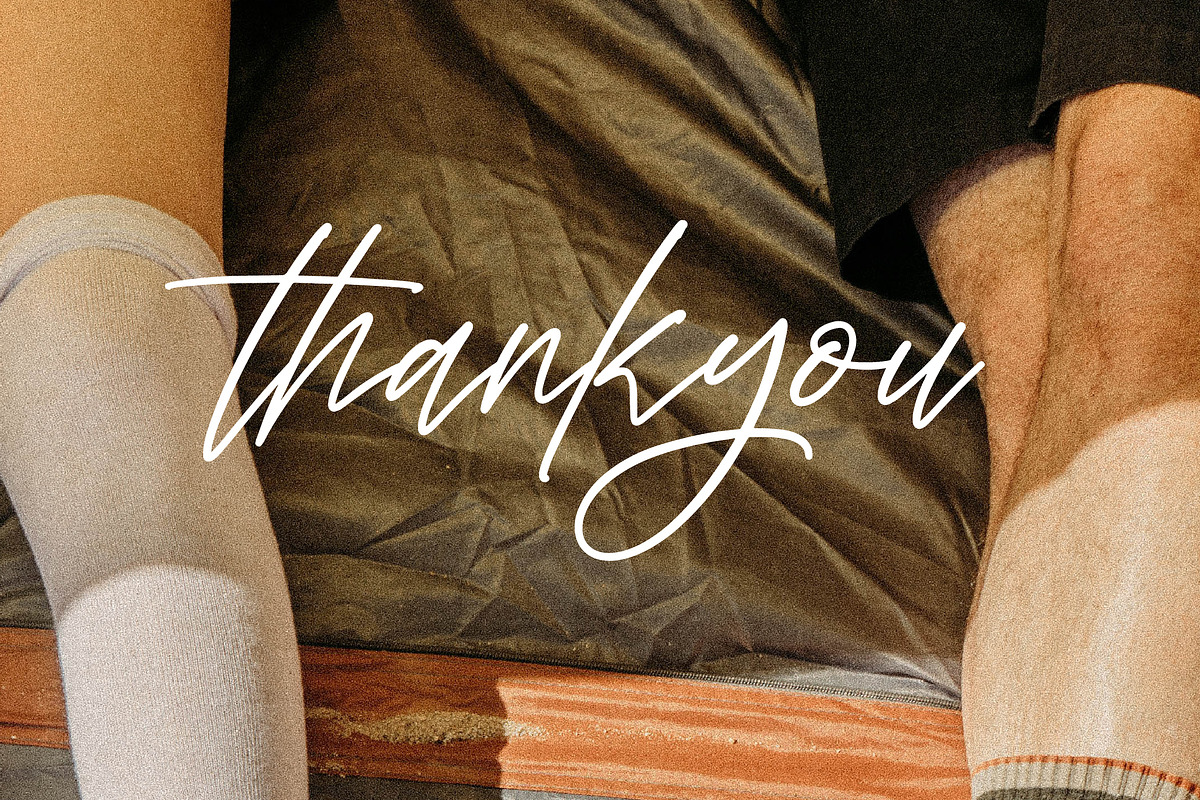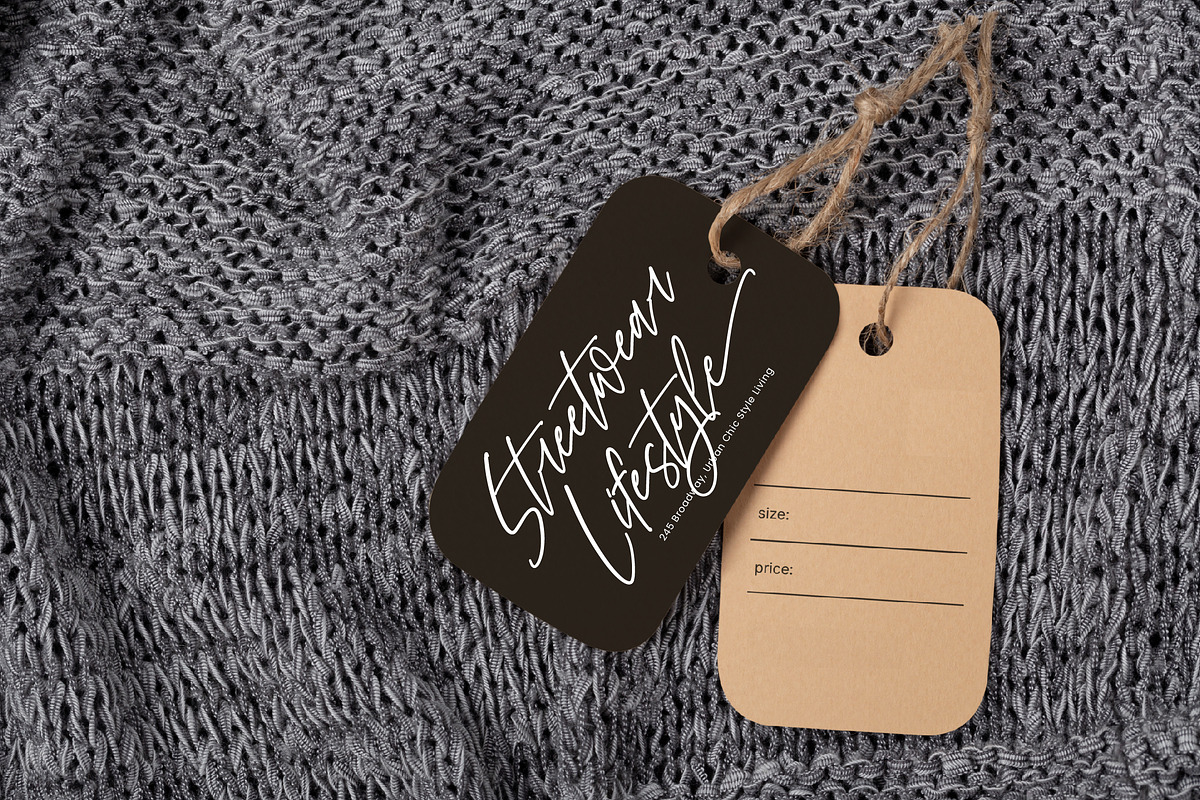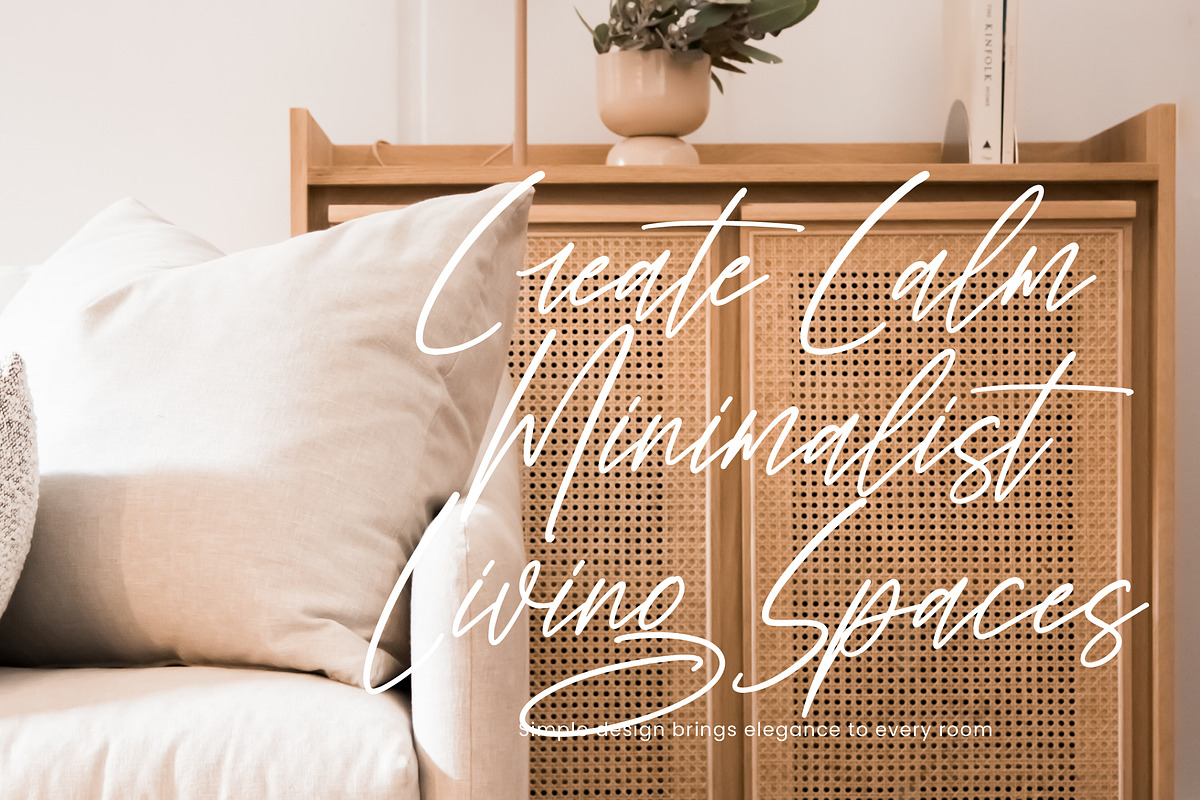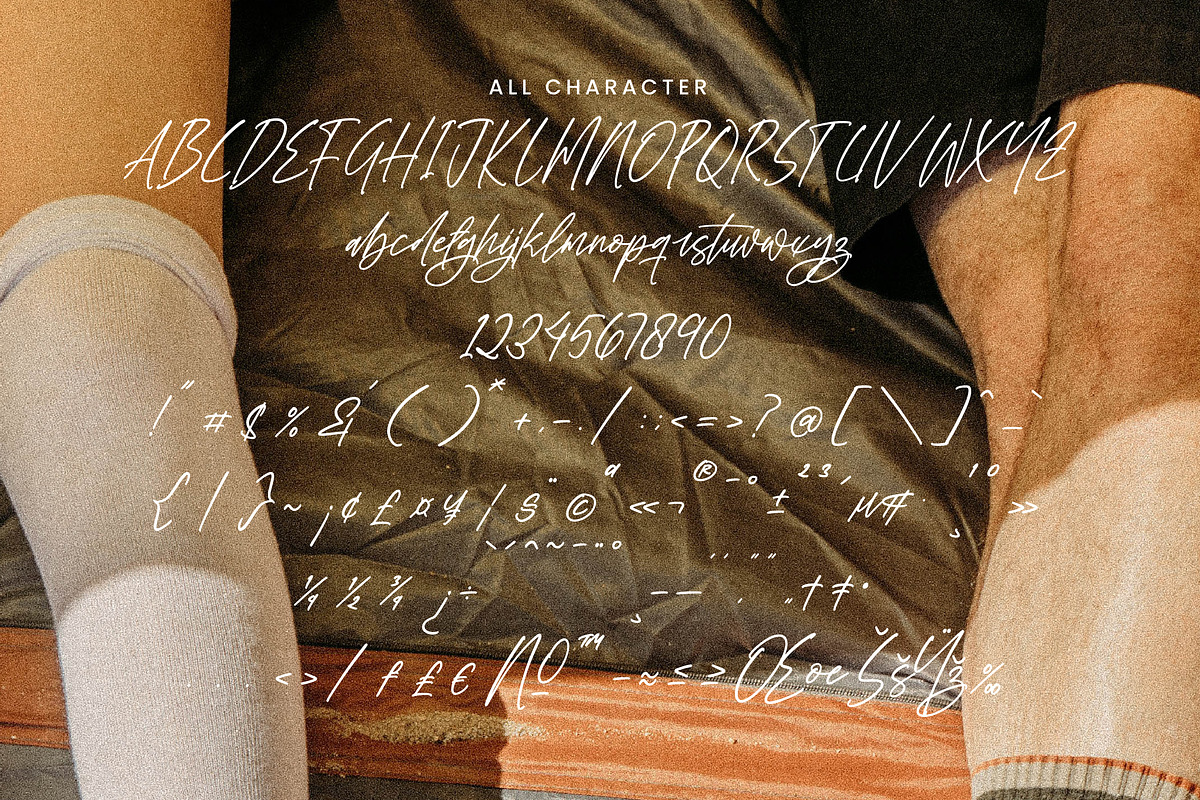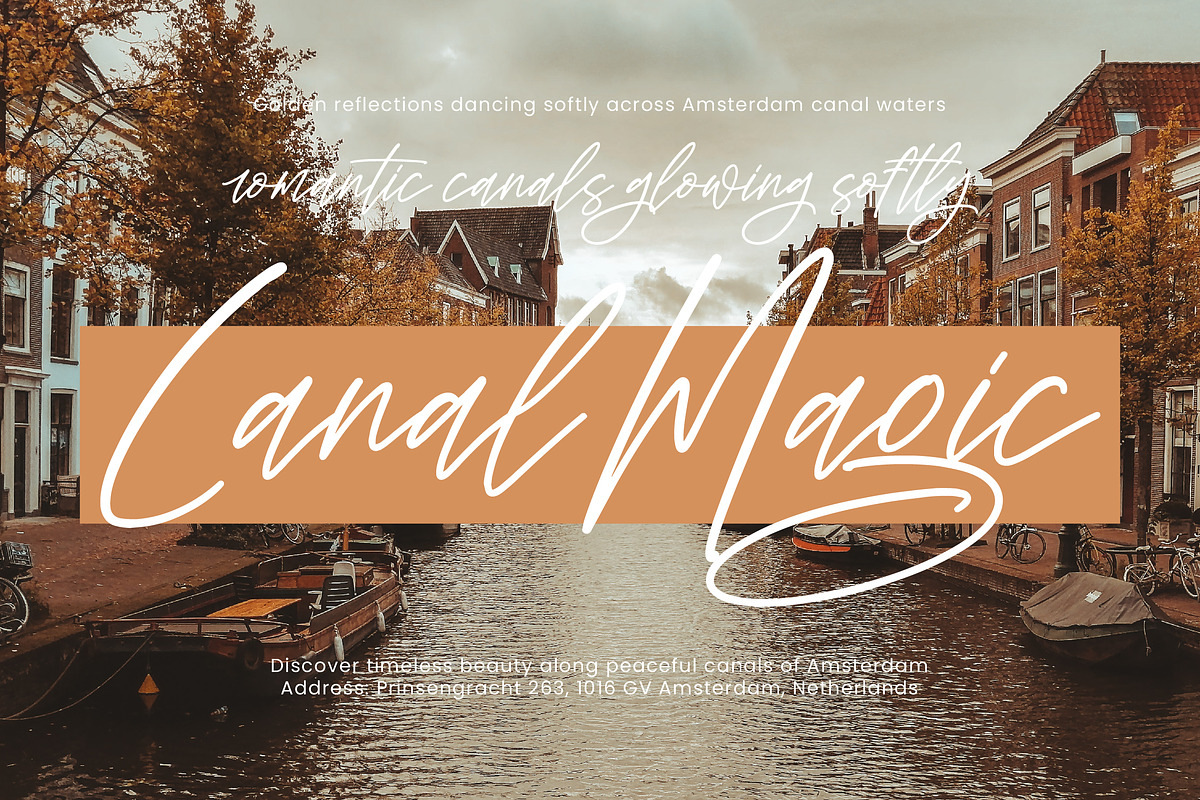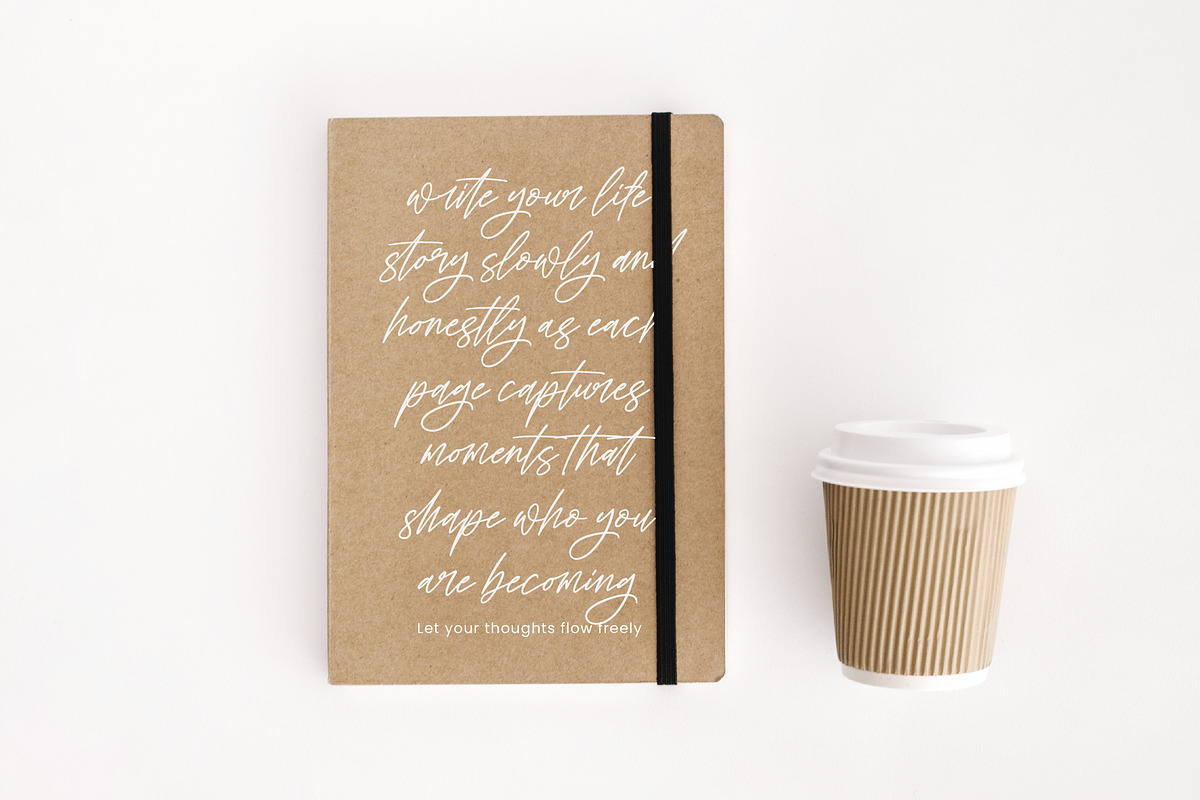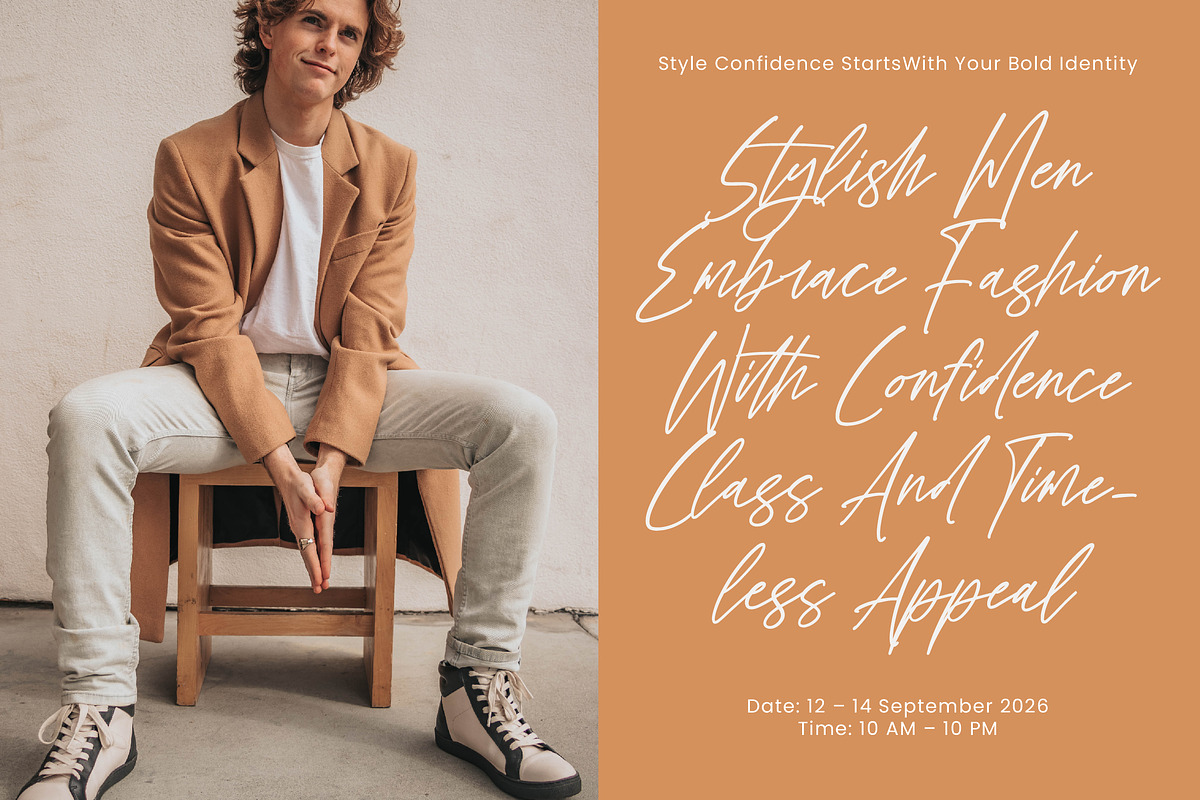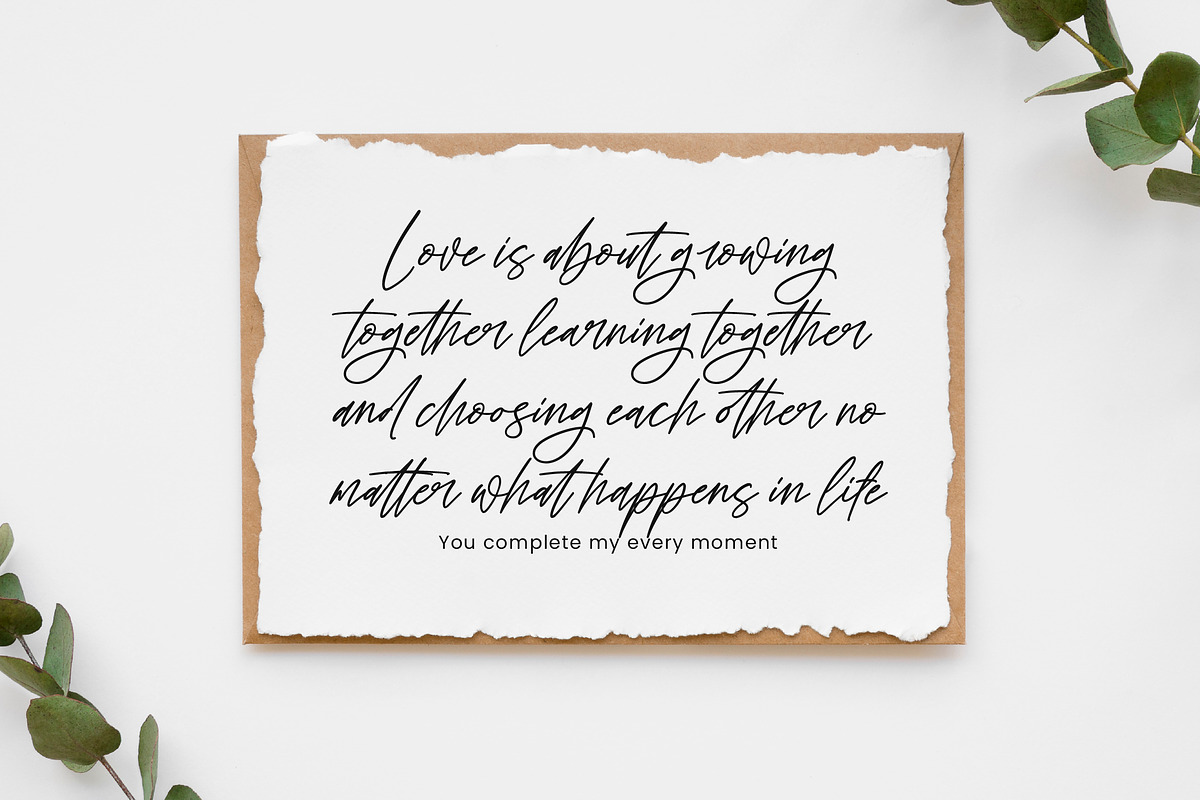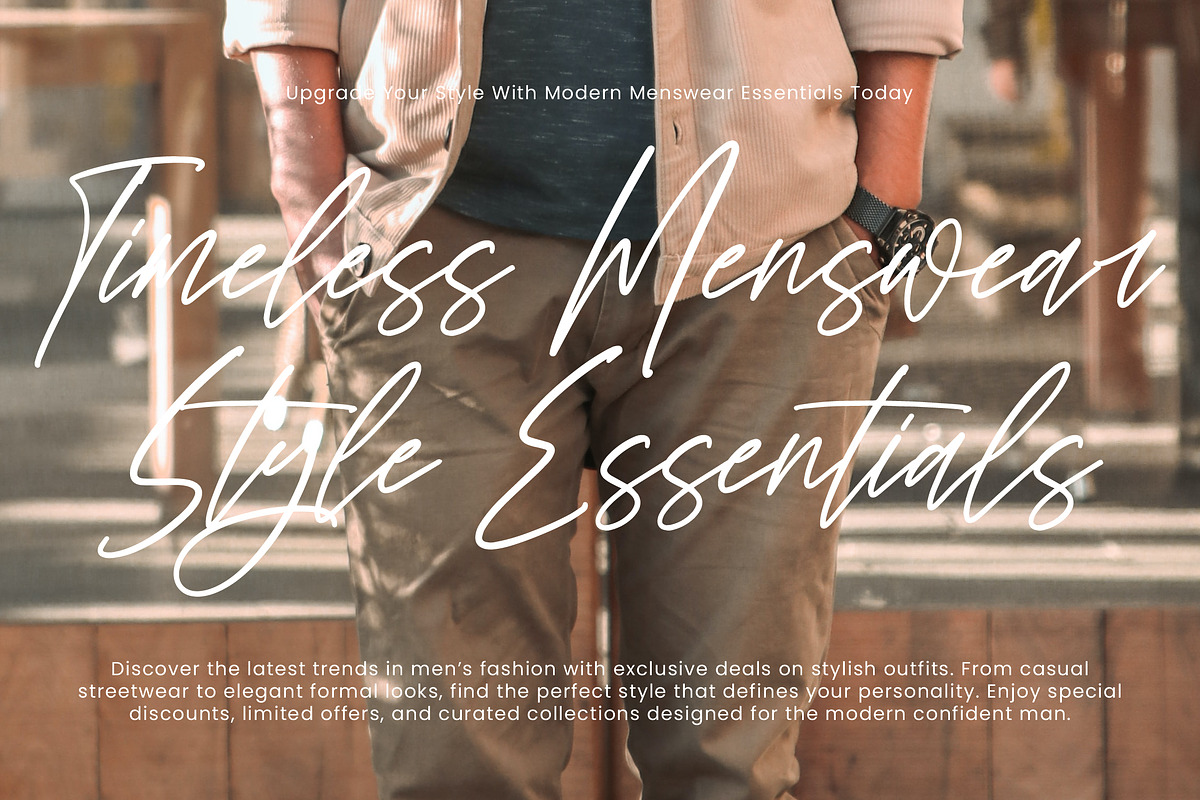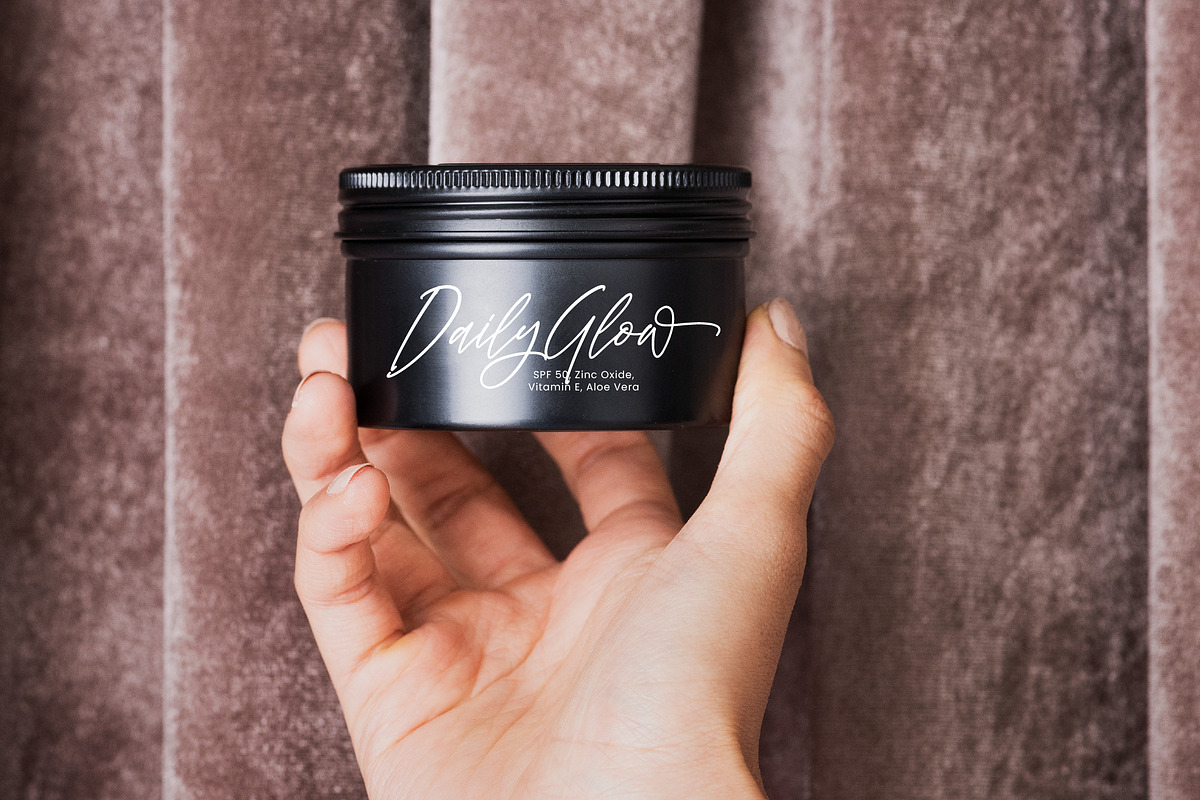
Living Spaces Handwritten Script
Living Spaces – Handwritten Script Font
Living Spaces is a clean and versatile handwritten script font designed for everyday creativity. It offers a balanced, natural style that works well across a wide range of design needs.
Perfect for branding, home decor, product packaging, quotes, social media, and casual yet stylish designs.